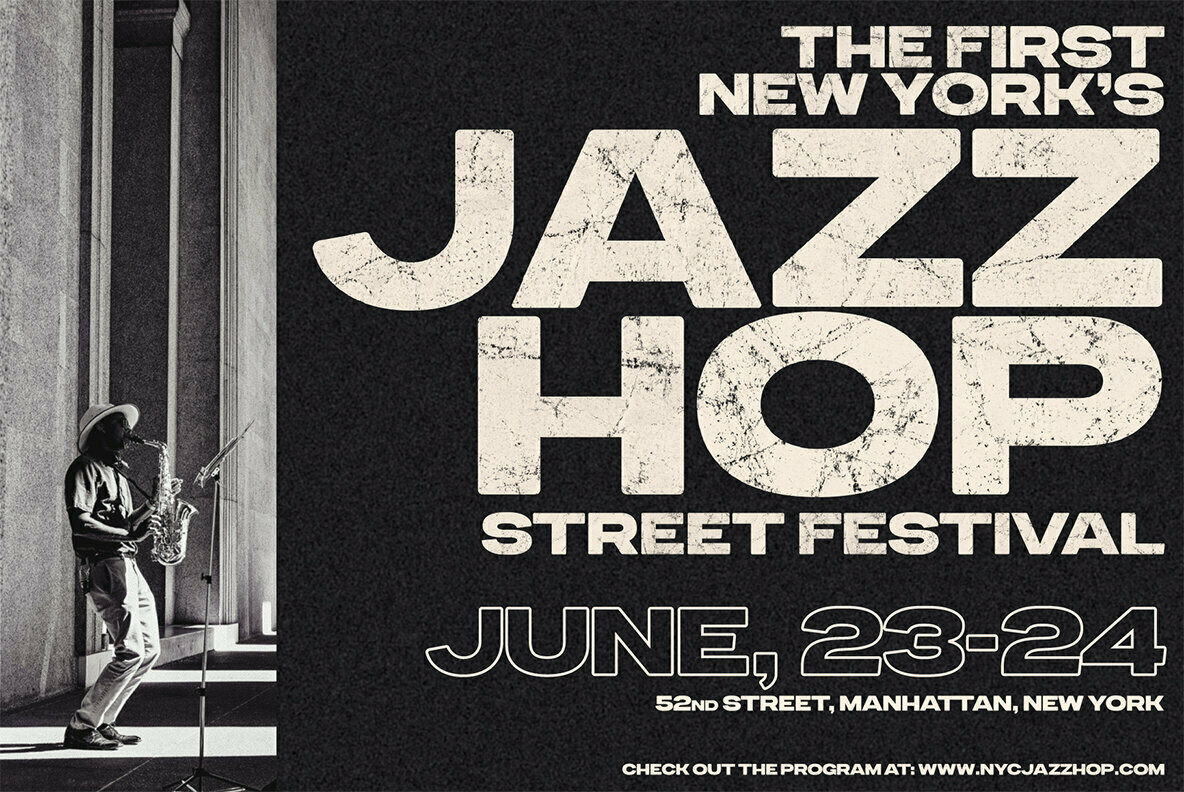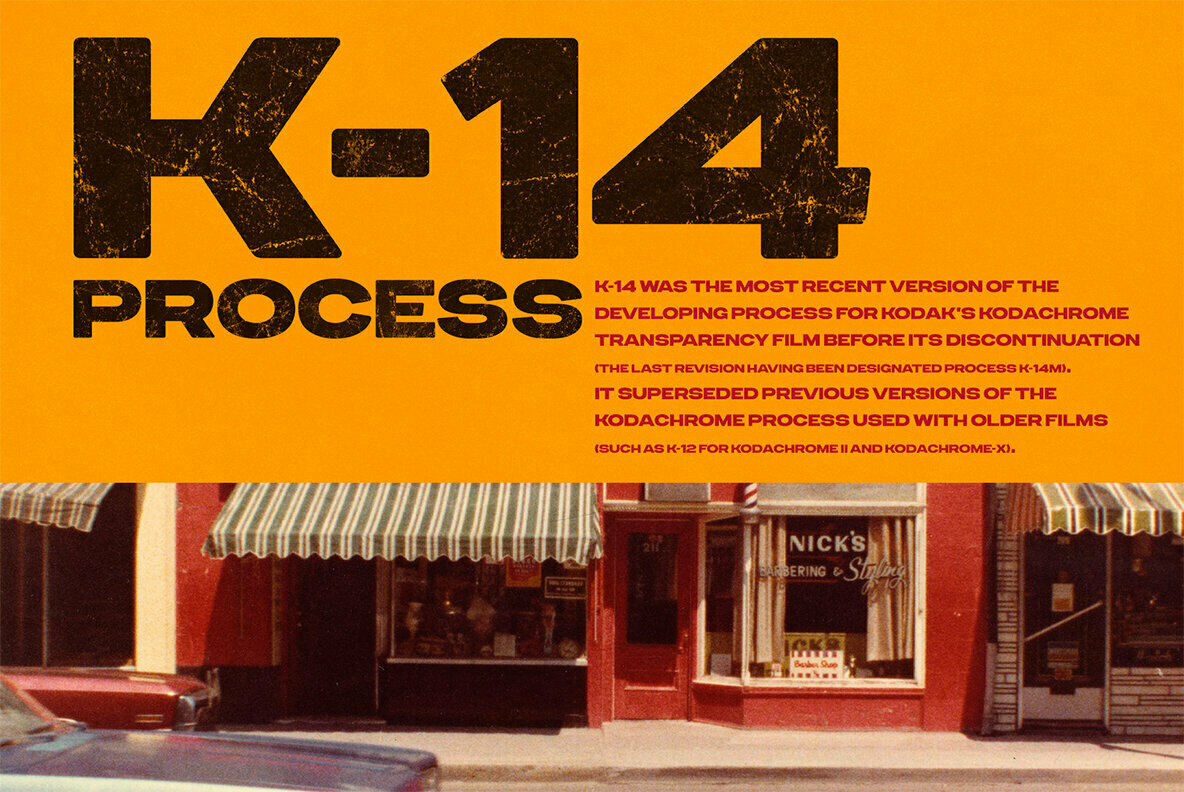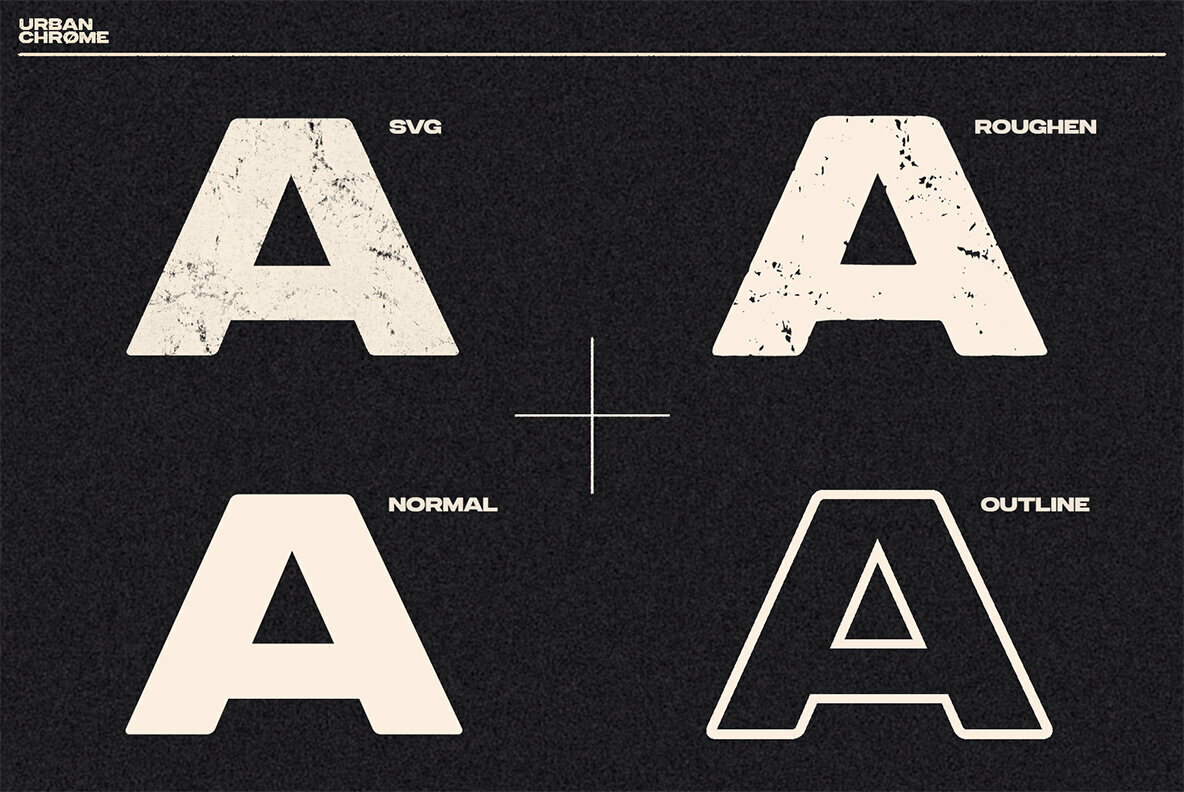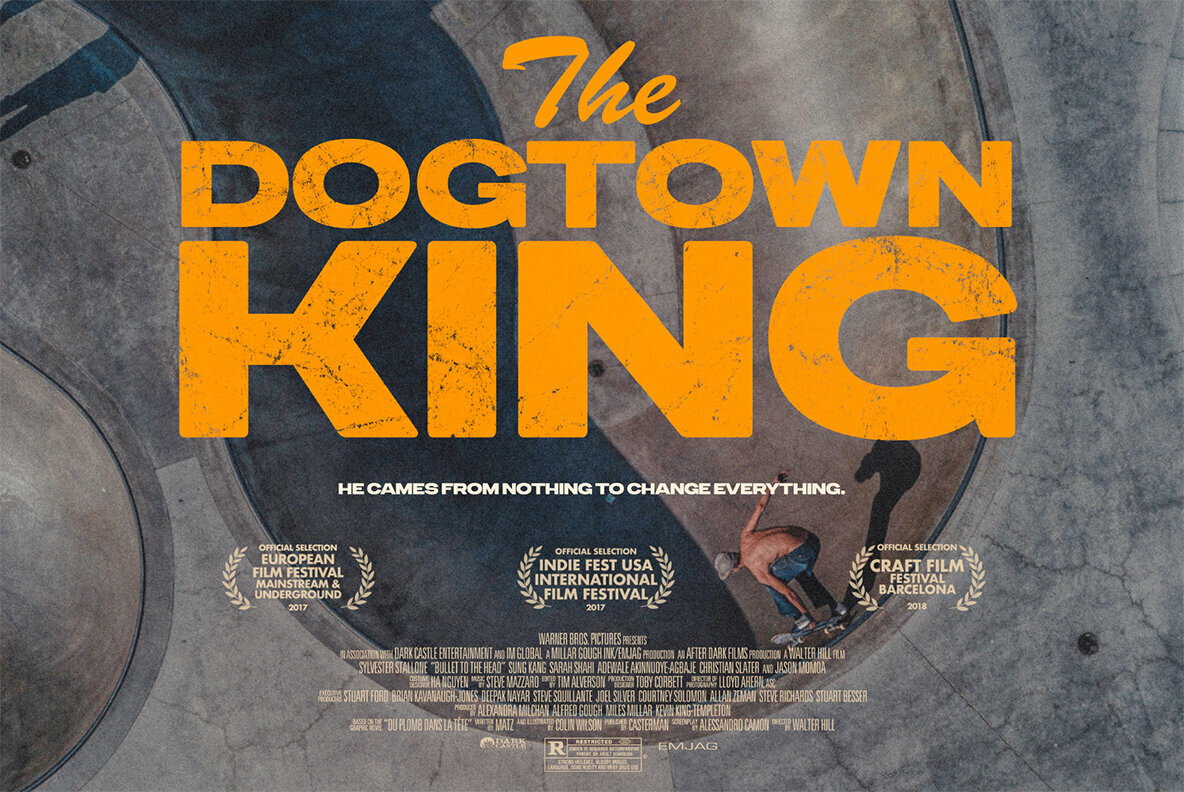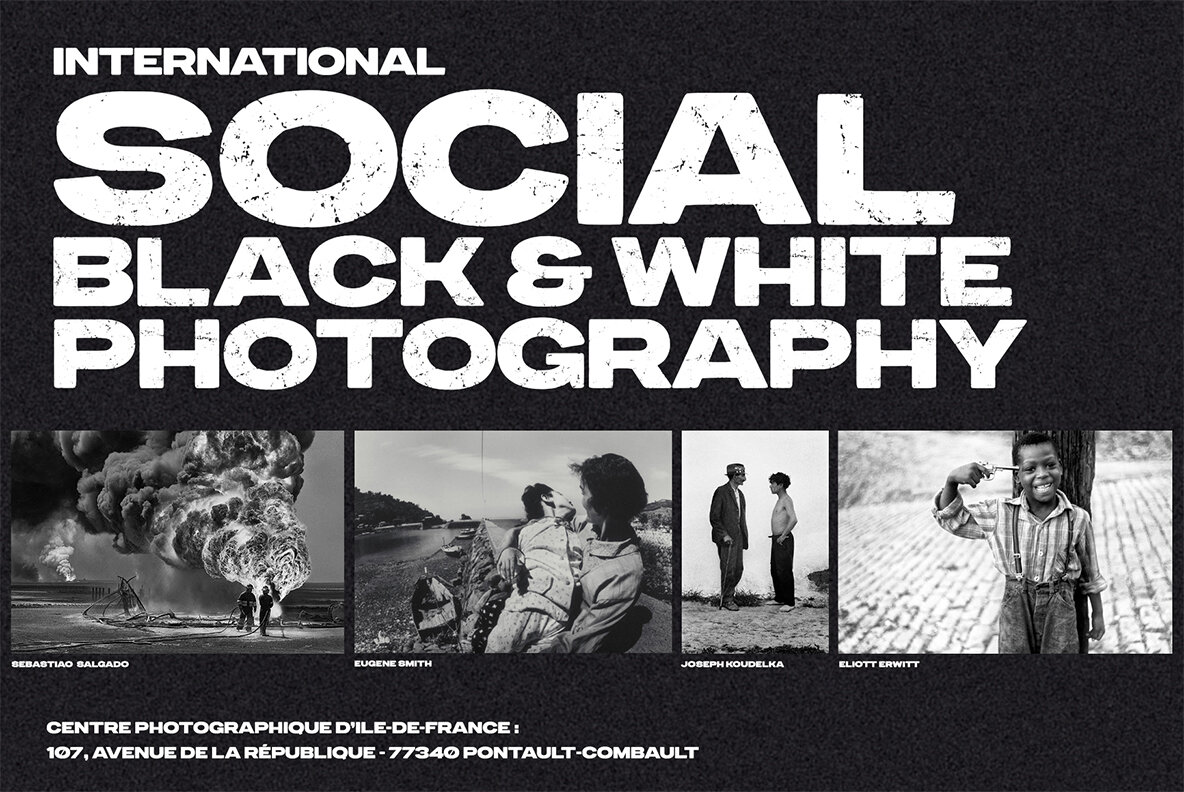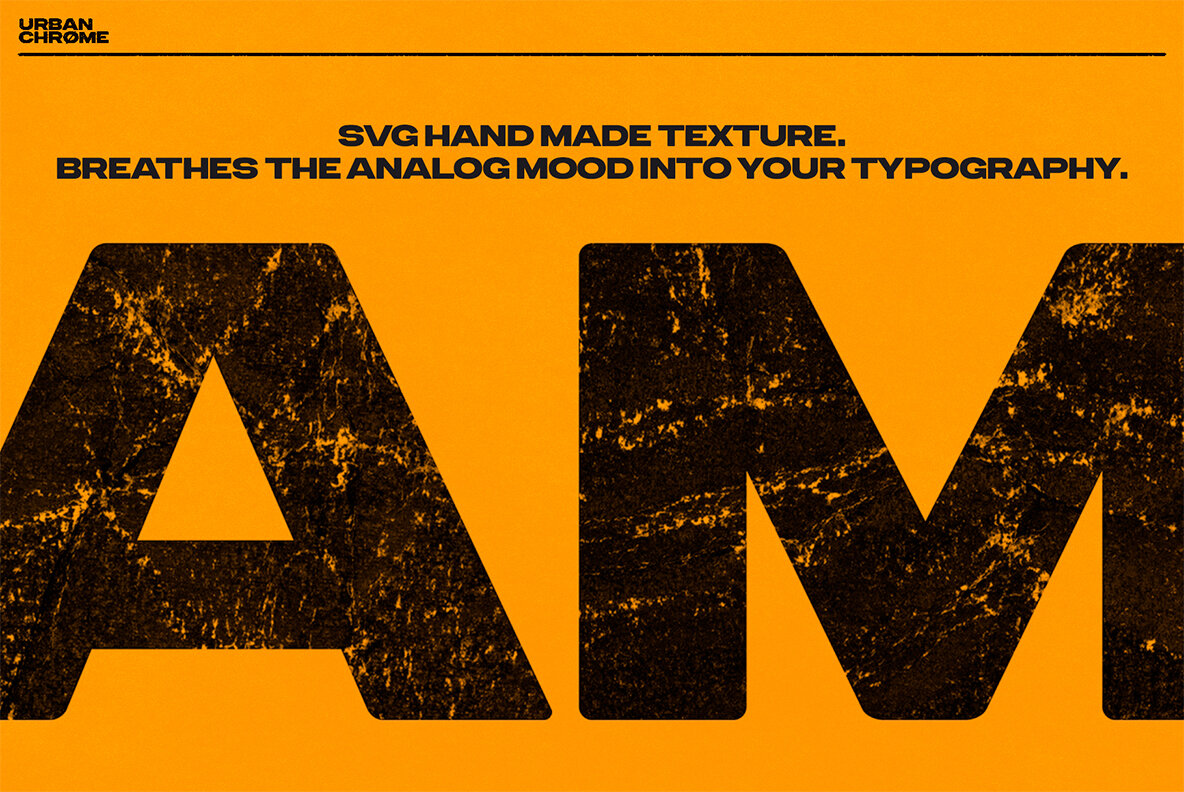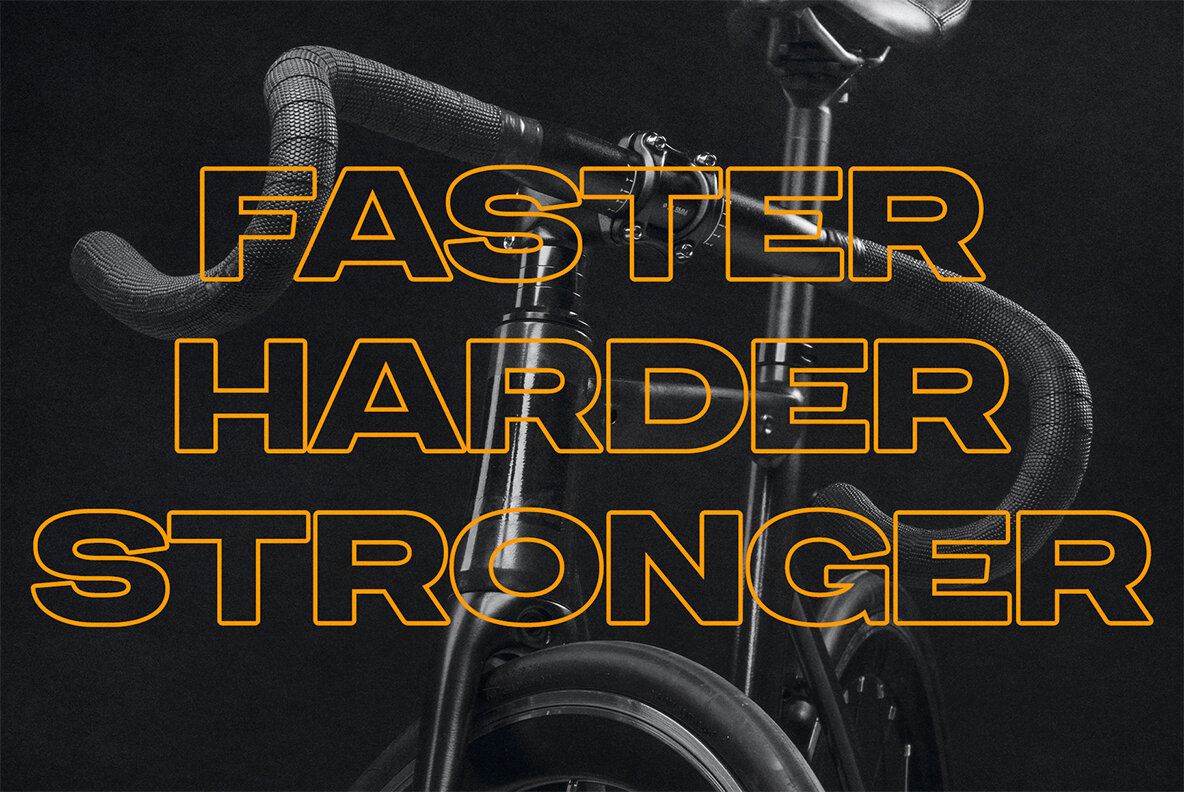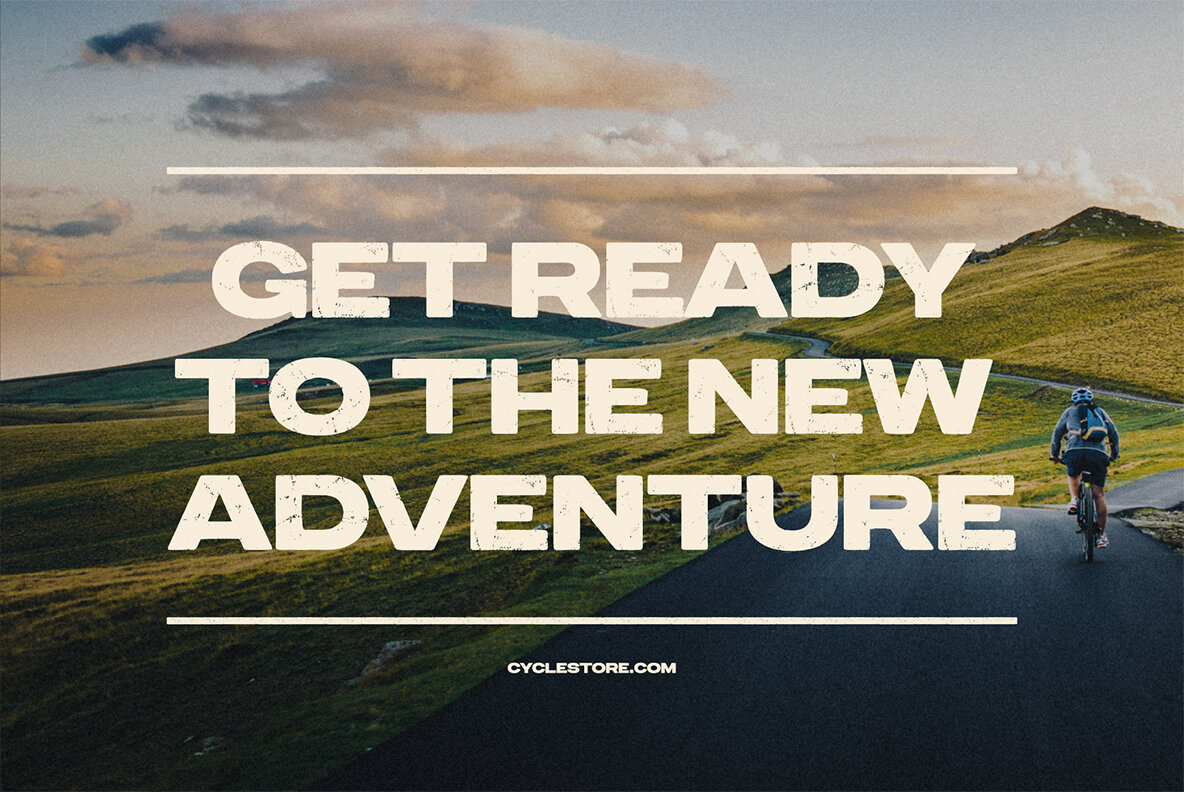
VVDS UrbanChrome Font
Urbanchrome Normal
Urbanchrome Outline
Urbanchrome Roughen
Urbanchrome SVG
The VVDS UrbanChrome font showcases a trendy all-caps sans-serif inspired by the iconic 80s multimedia era. This nostalgic yet contemporary typeface evokes the classic feel of vintage VHS cassette packaging, making it a fitting choice for movie titles, party flyers, exhibition identities, and dynamic advertisements. Immerse your audience in the visual language of an era that celebrated bold design and multimedia storytelling with VVDS UrbanChrome.VVDS UrbanChrome: Cinematic Sans for Captivating Designs